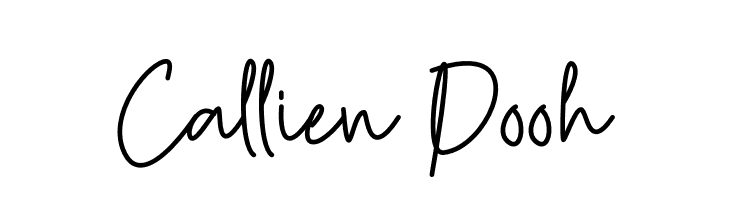
A playful, casual handwritten font with flowing, connected letterforms.
A playful, handwritten font with tall, narrow letters and a casual style.
An elegant, flowing script font with a natural handwriting style.
An elegant script font with ornate swirls and flowing, interconnected letters.
A minimalistic and elegant script font with a modern touch.